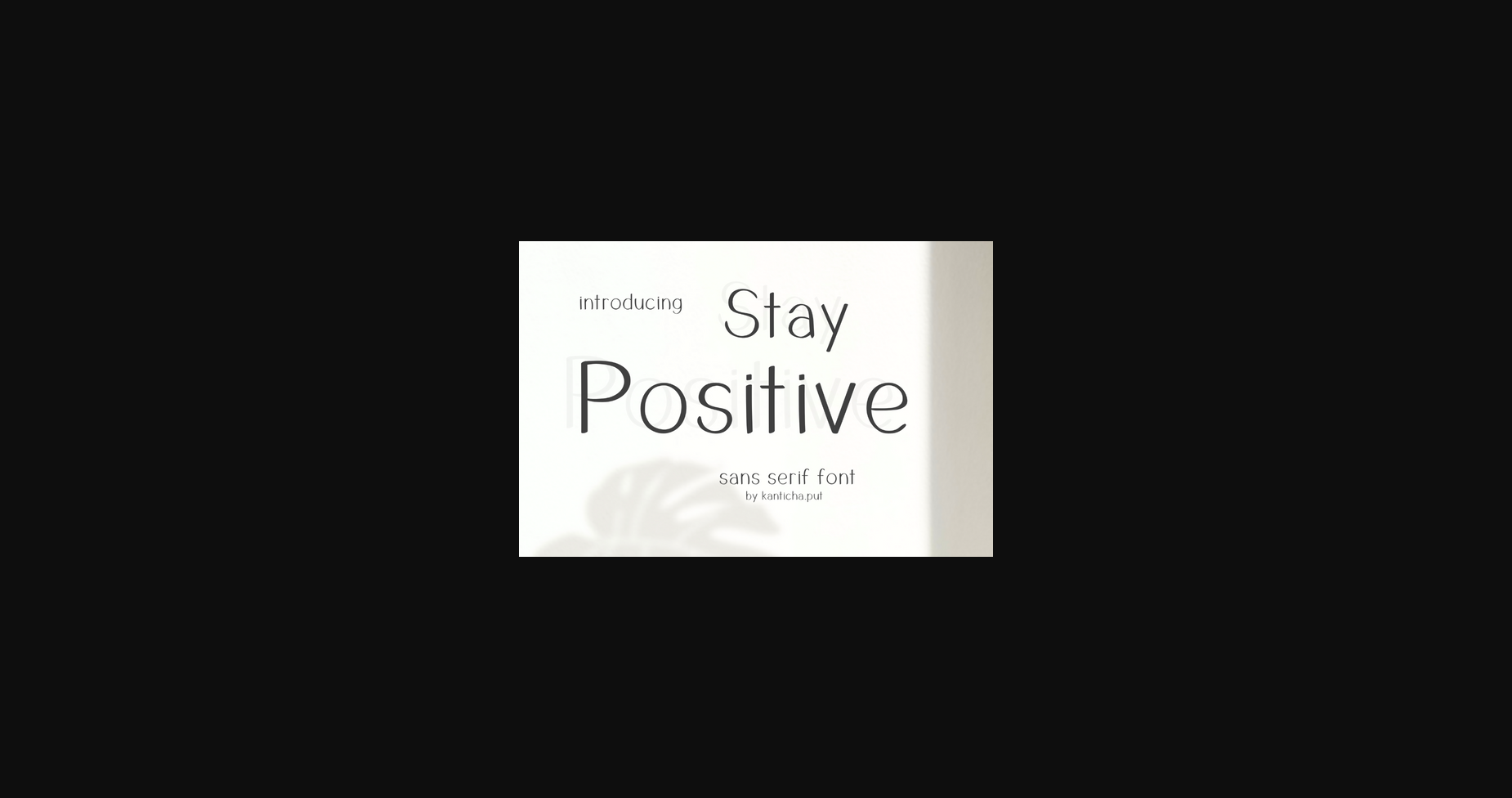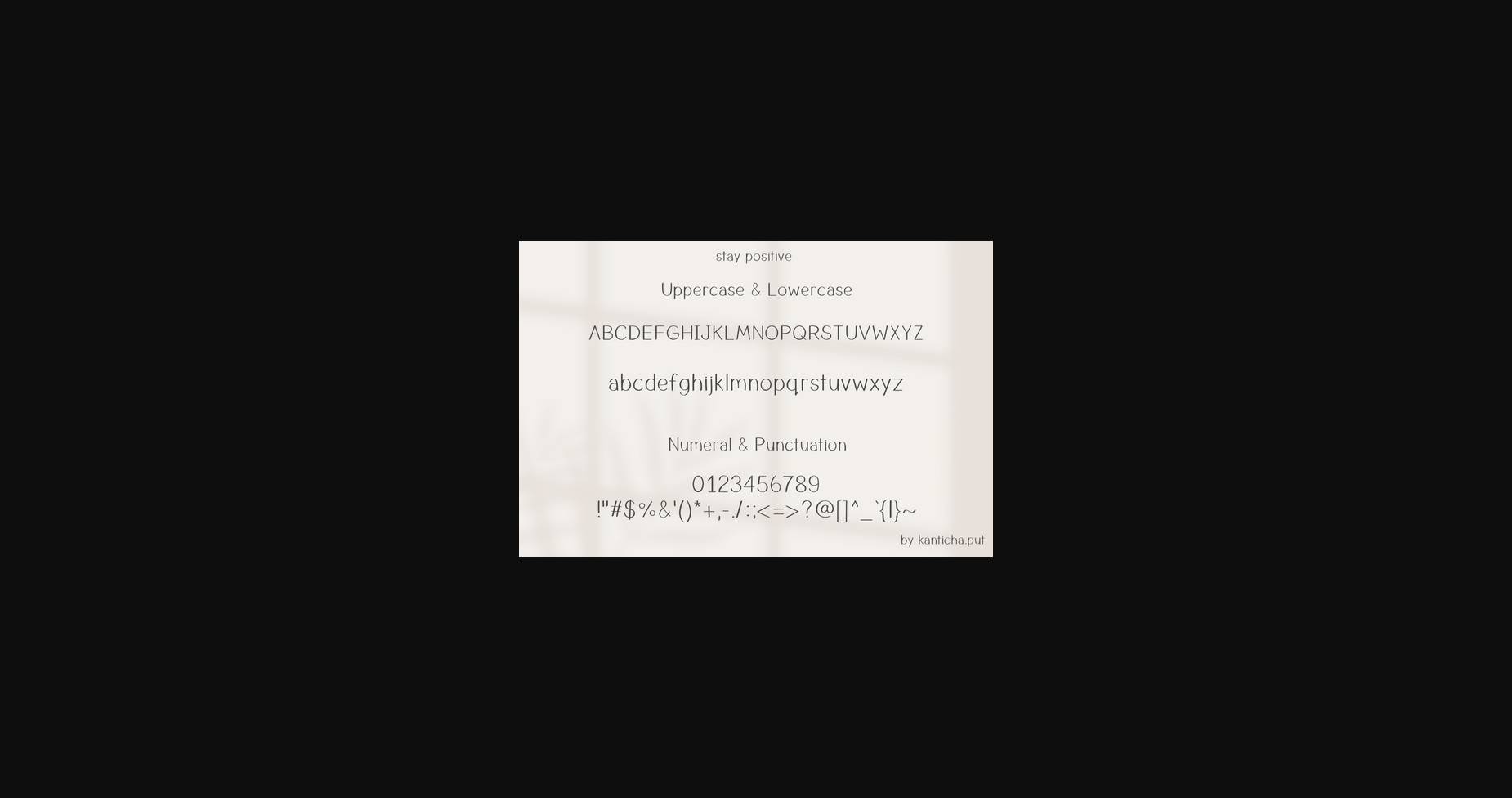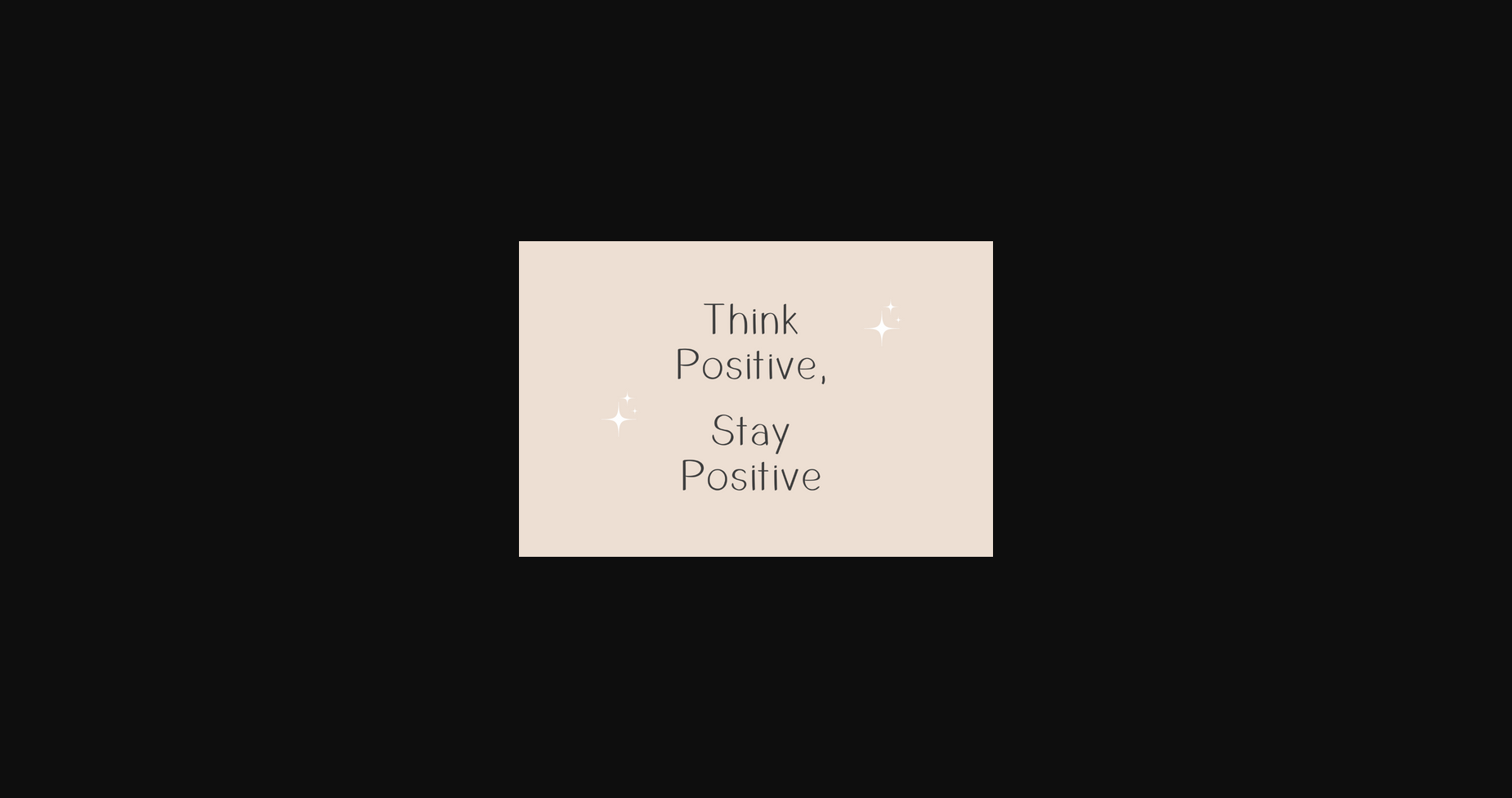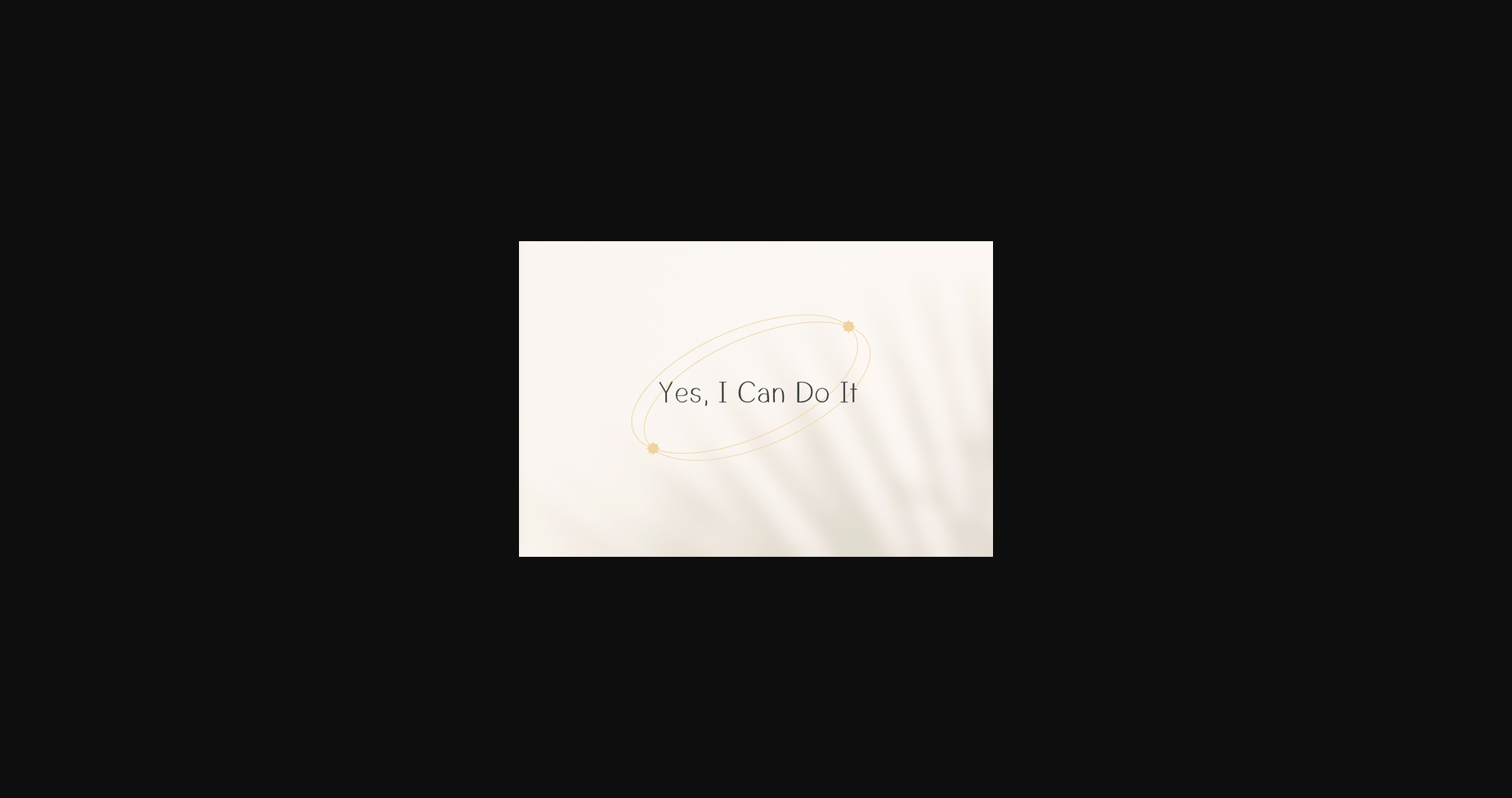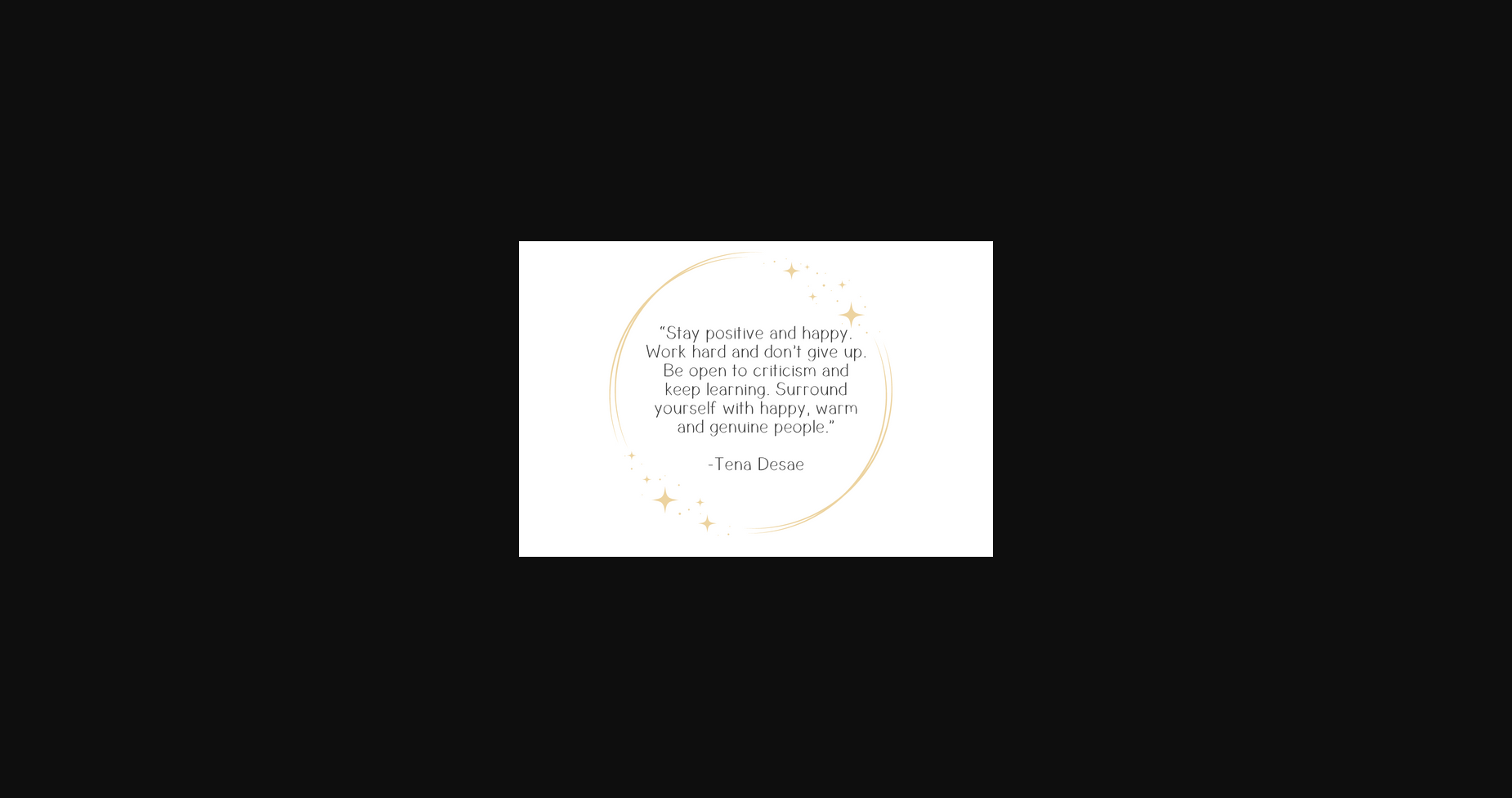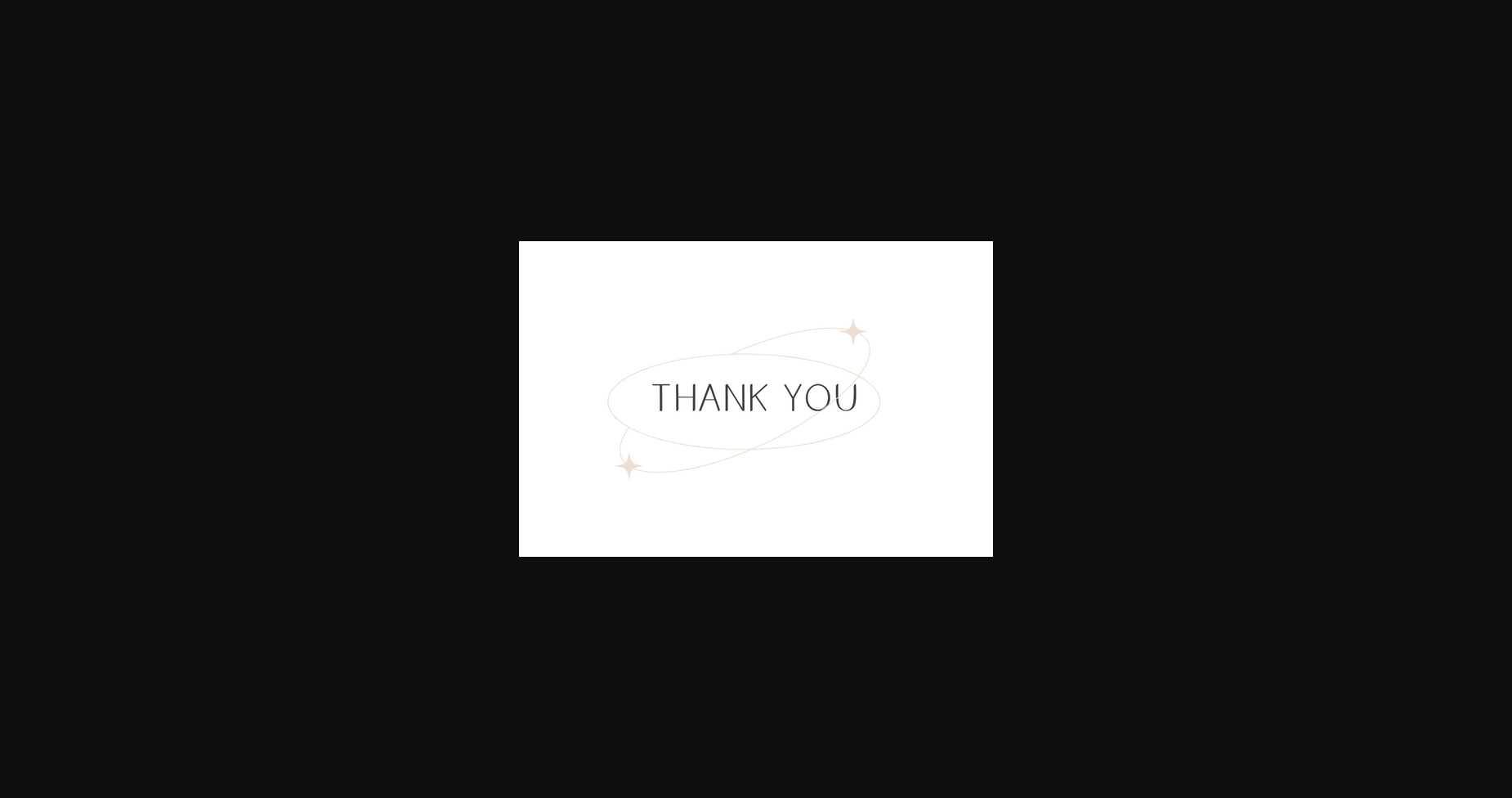
Stay Positive Font
About Stay Positive Font
Stay Positive is an elegant and modern sans-serif font. It can easily be matched to an incredibly large set of projects, so add it to your creative ideas and notice how it makes them stand out!